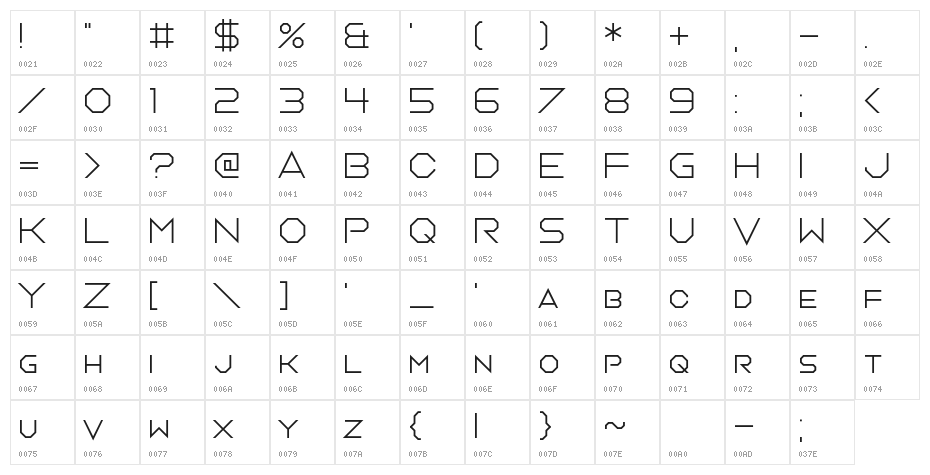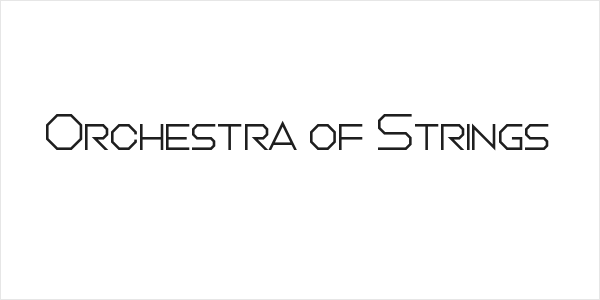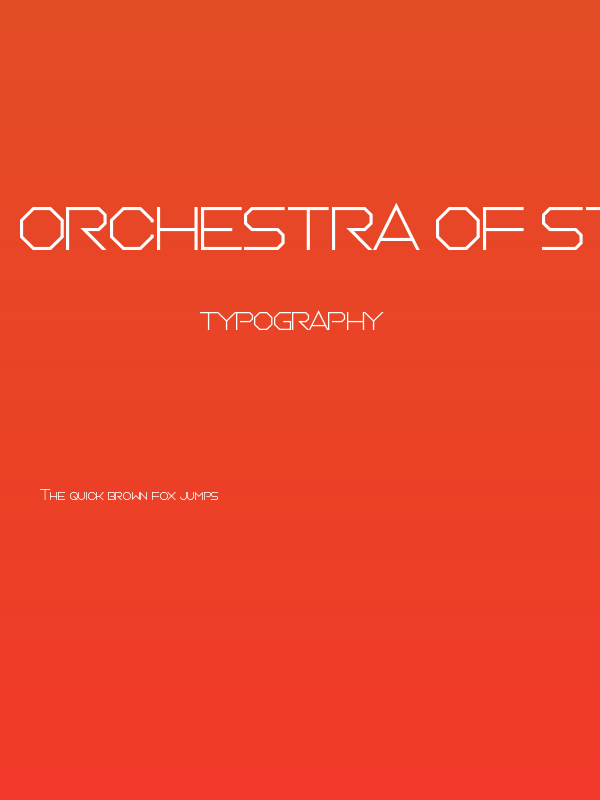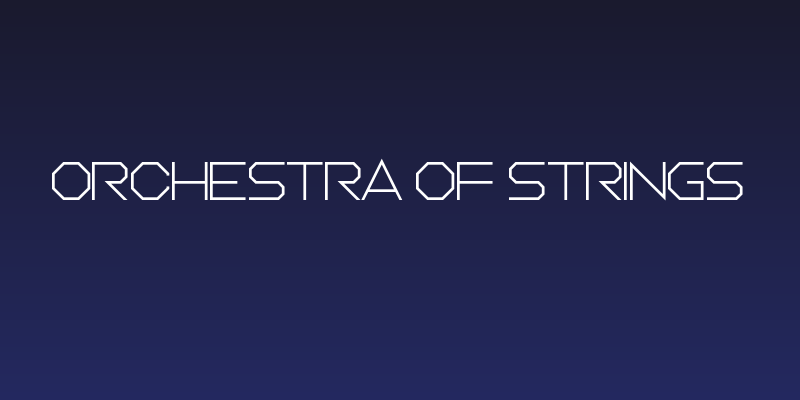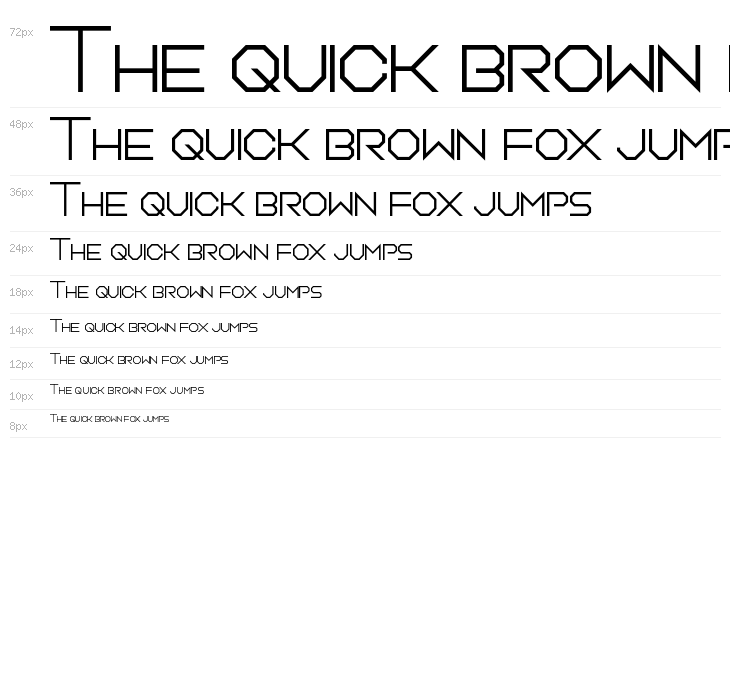
Orchestra of Strings Font
Orchestra of Strings Description
This font features a geometric and angular design, characterized by its sharp edges and straight lines. Each character is constructed with a consistent thickness, giving it a uniform appearance. The uppercase and lowercase letters maintain a similar style, emphasizing a modern and futuristic aesthetic. The numerals and special characters follow the same design principles, ensuring a cohesive look across all elements. This font's unique structure makes it stand out, offering a distinct visual appeal that is both bold and striking.
| Proposed Projects | Ideal for technology branding, sci-fi posters, video game titles, and modern art installations. |